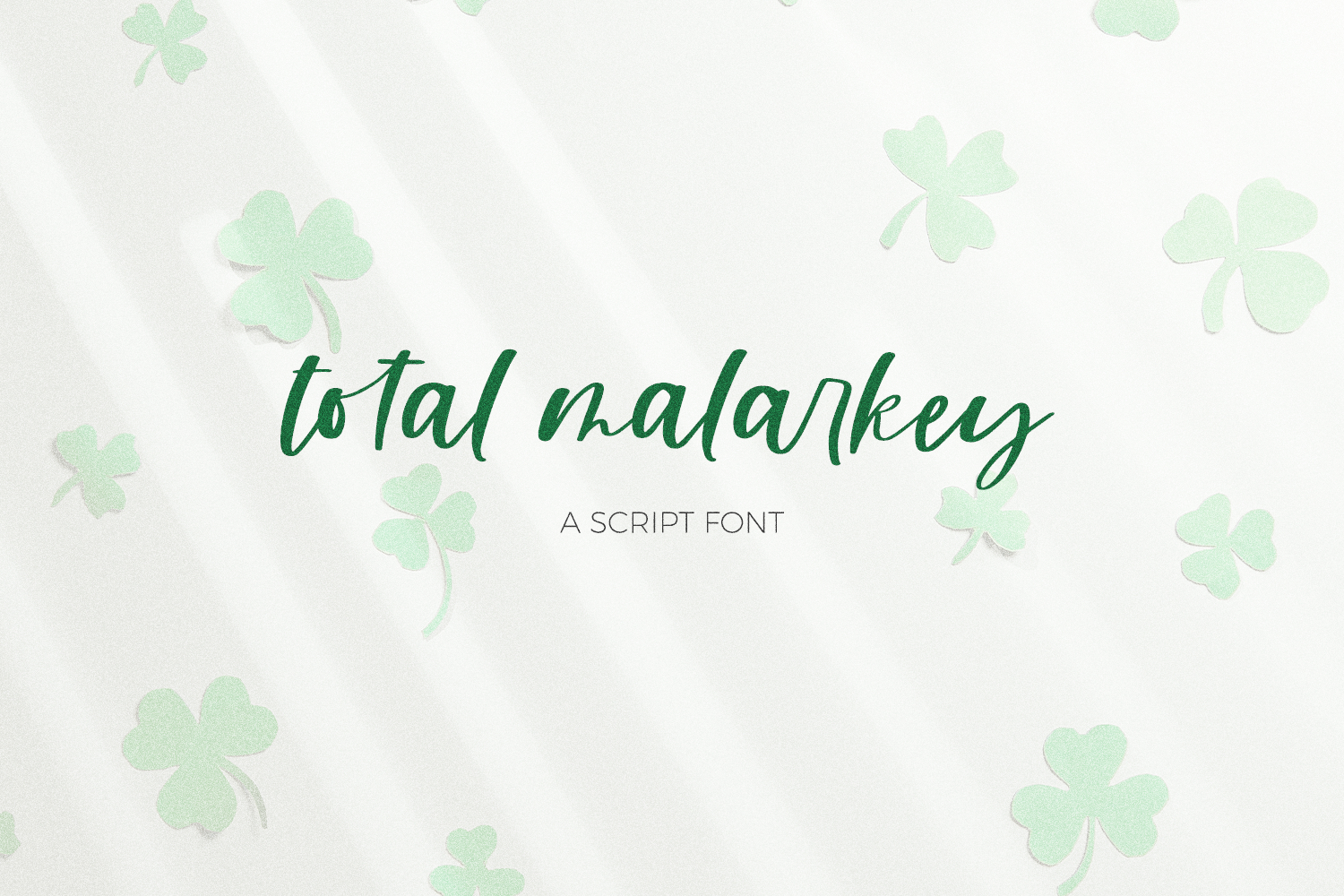
Total Malarkey Script
Total Malarkey is a casual script font with some ligatures. This cursive font has clean lines with a handwritten feel, which makes it perfect for logos & branding, greeting cards, painted banners, digital planners, note-taking apps, Canva, Cricut projects, Silhouette projects, designing SVG files, laser cutting projects, & more.
Total Malarkey Script includes:
- 19 ligatures - ar, cr, er, ir, ll, ob, of, go, ol, om, on, oo, op, or, os, to, ss, tt, ur